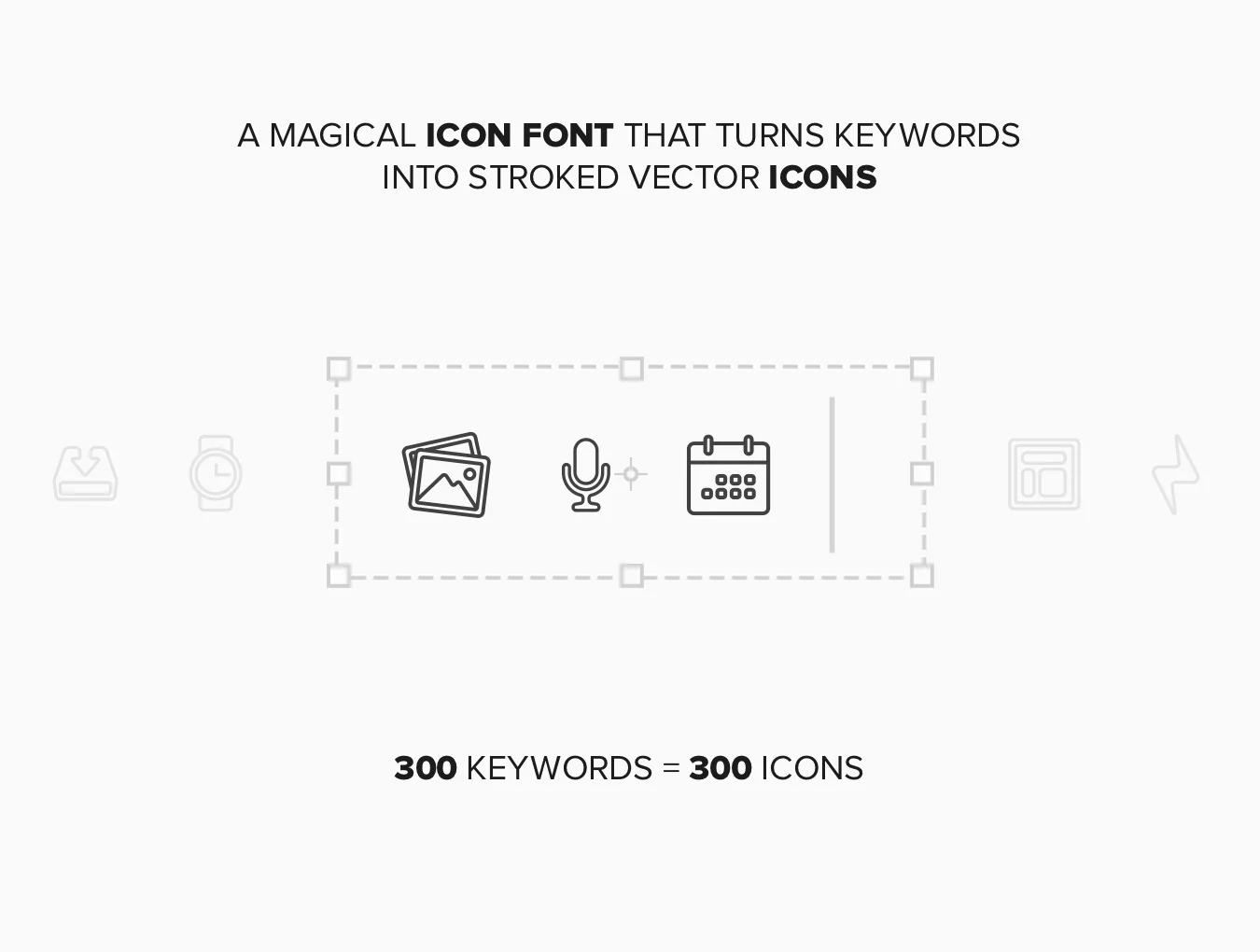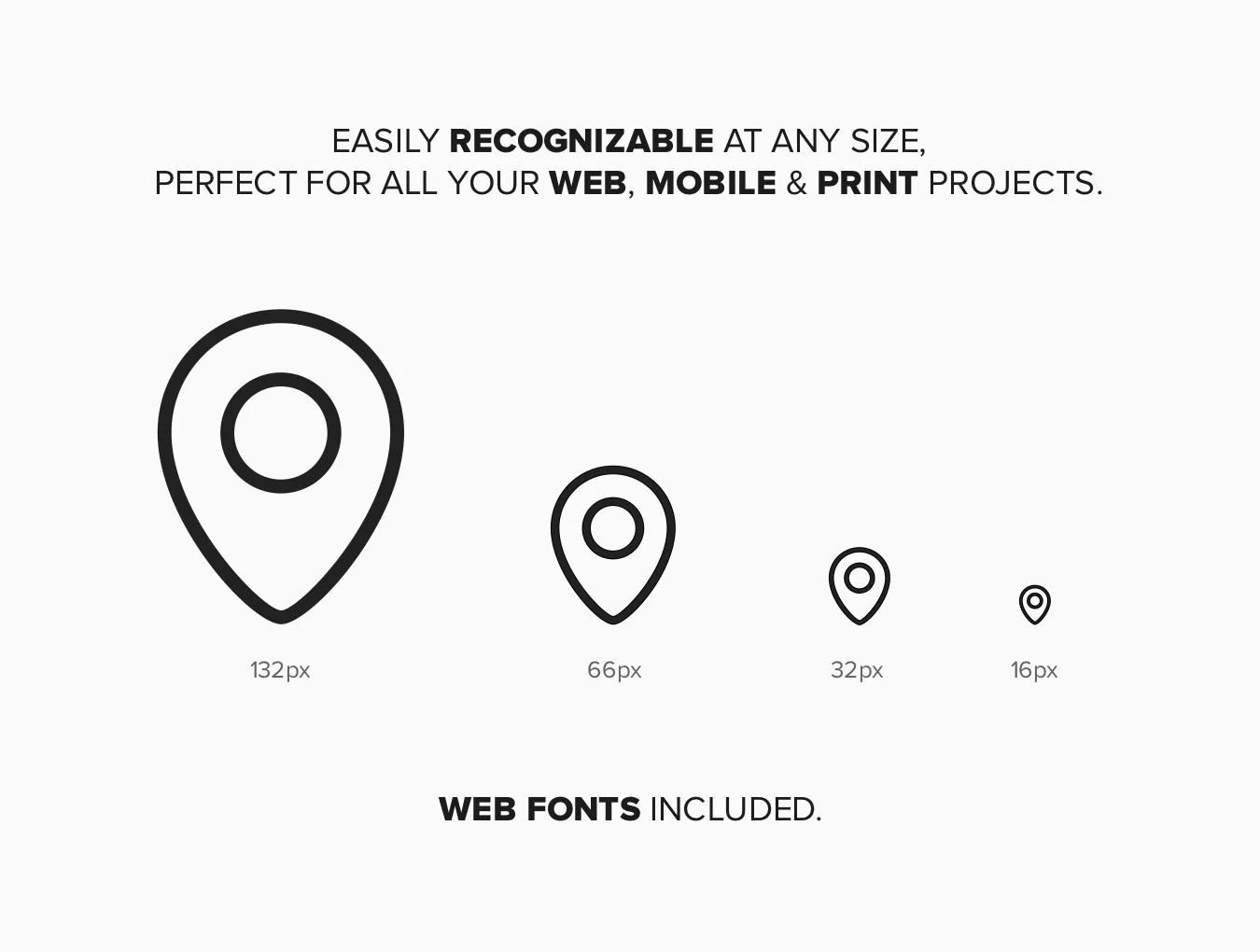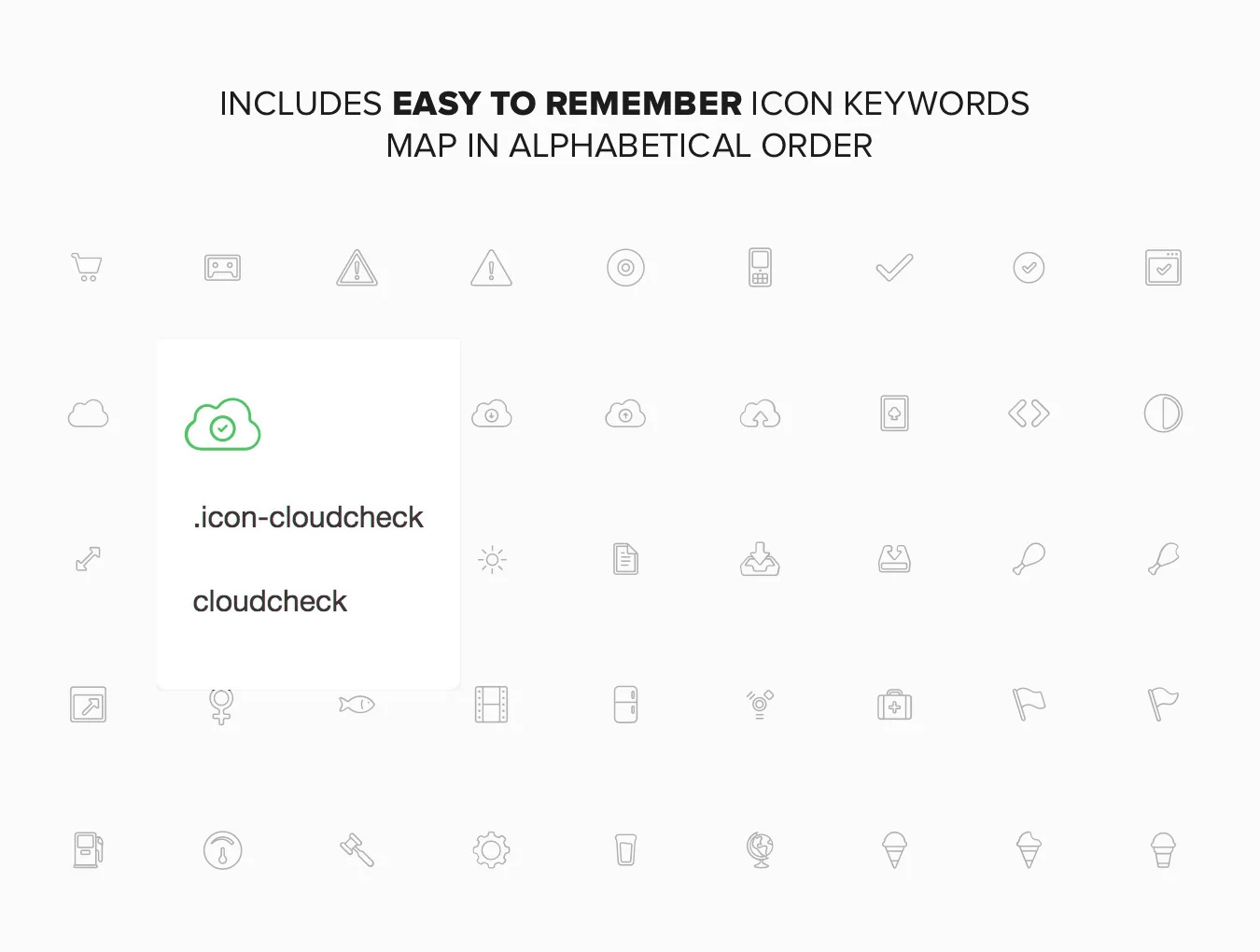
UI Font - Lines
Outline icon fonts take the prize!
Simple to use
Carefully designed
Meaningful glyph and class labels
Over 300 line icons packaged as an easy-to-integrate icon font. Works for desktop projects and web use. Limited-time deal: get 50% off the regular $44 price.